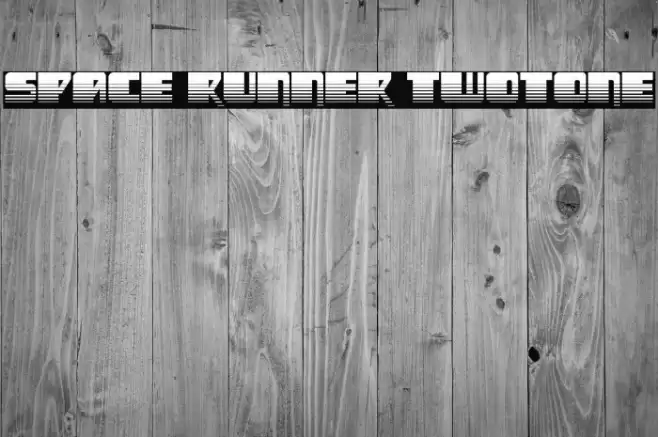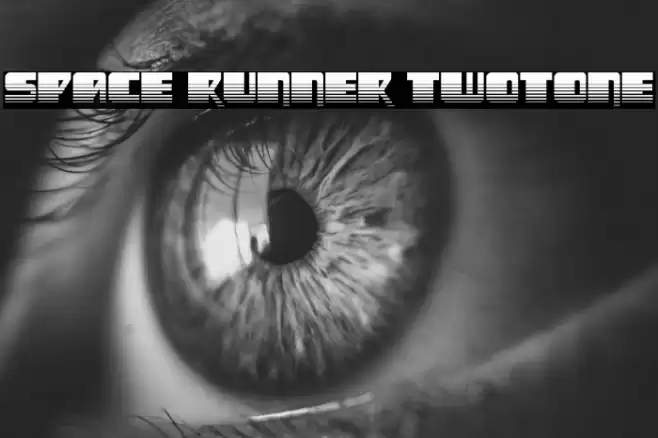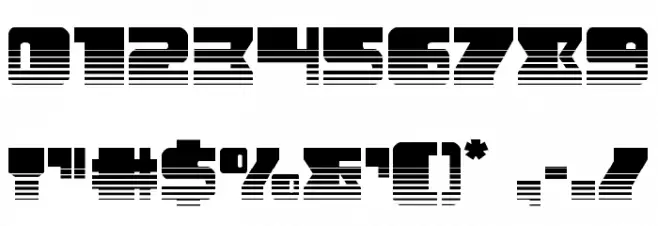
Space Runner Twotone Font
Space Runner Twotone Description
This font features a futuristic and dynamic design with a distinct two-tone effect. The characters are bold and wide, with horizontal lines creating a sense of motion and speed. The geometric shapes and sharp angles give it a modern and technological feel, reminiscent of digital displays or sci-fi aesthetics. The uppercase and lowercase letters maintain a consistent style, while the numbers and special characters integrate seamlessly into the overall design. This font stands out with its unique visual impact, making it ideal for projects that require a strong and contemporary look.
A bold, futuristic font with a two-tone, dynamic design from Uncategorized fonts.
- Proposed Projects: Ideal for sci-fi themed projects, tech branding, video game titles, and futuristic posters.
- Width: Expanded
- Overall Style: Futuristic